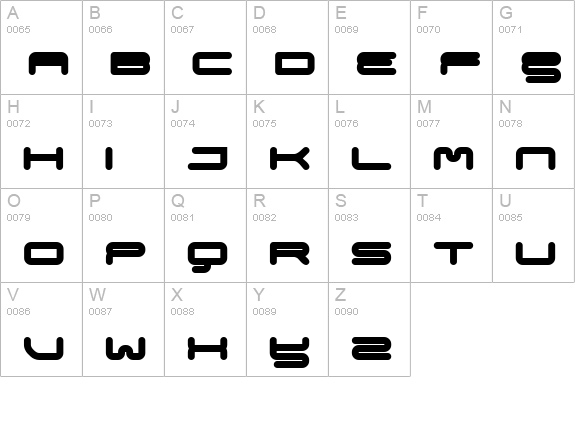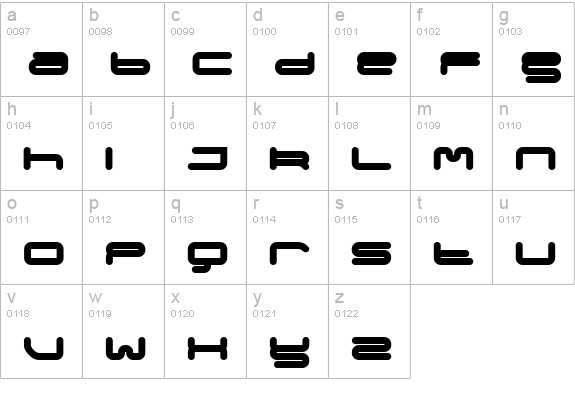
megabold Font Details
The Megabold font is a stunning display typeface that exudes power and confidence with its bold and striking appearance. Its thick lines and robust design make it perfect for making a statement in various design projects. Whether you are creating eye-catching headlines, attention-grabbing posters, or powerful logos, Megabold will not disappoint. What makes Megabold even more appealing is that it is available for free download at FontsMarket.com. This means you can easily access this impressive font without any cost, making it a valuable addition to your font library. Don't miss out on the opportunity to enhance your designs with the impactful Megabold font, available for free at FontsMarket.com.